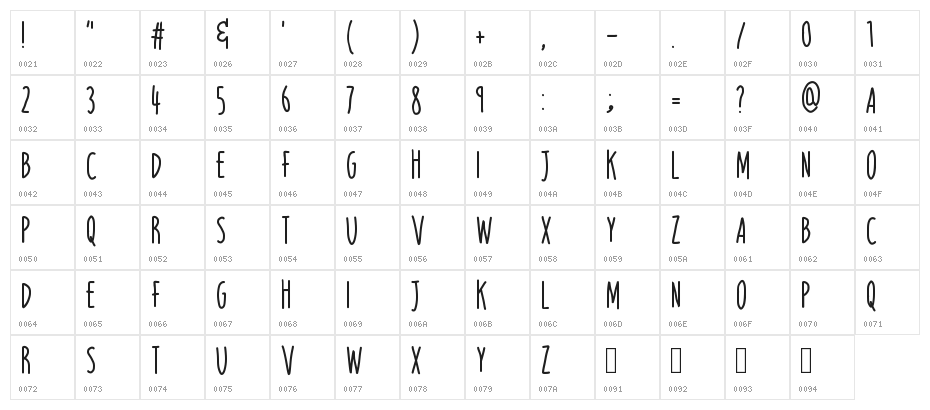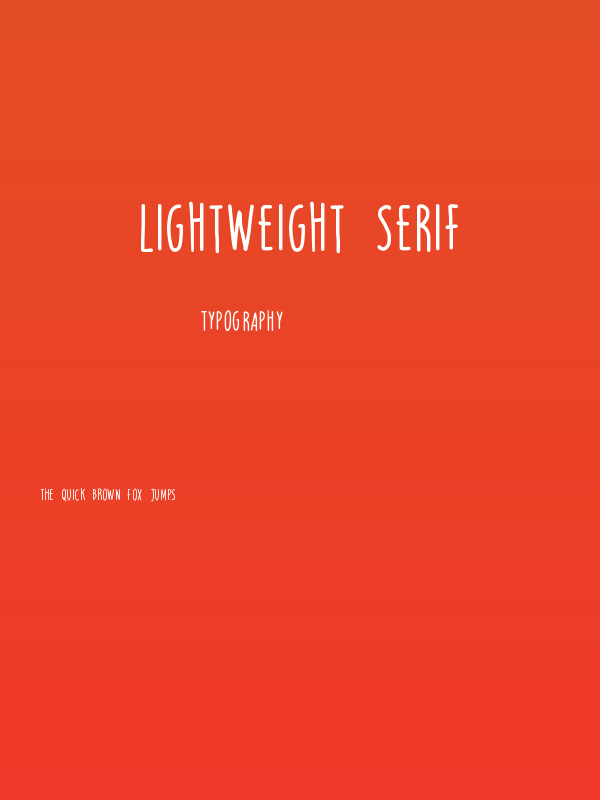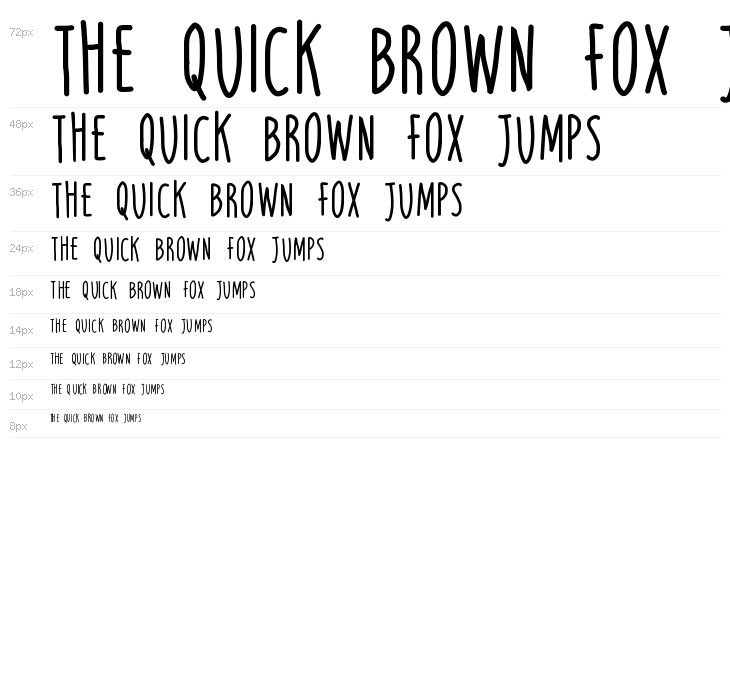
LIGHTWEIGHT SERIF Font
LIGHTWEIGHT SERIF Description
This font features a playful and informal handwritten style, characterized by its tall, narrow letterforms and slightly irregular strokes. The uppercase and lowercase letters maintain a consistent height, giving the font a cohesive appearance. The strokes are smooth and rounded, adding a friendly and approachable feel. The numbers and special characters are designed to match the overall style, ensuring uniformity across all glyphs. This font is well-suited for designs that require a personal touch, such as invitations, greeting cards, or casual branding projects.
| Proposed Projects | Ideal for invitations, greeting cards, casual branding, and personal projects. |